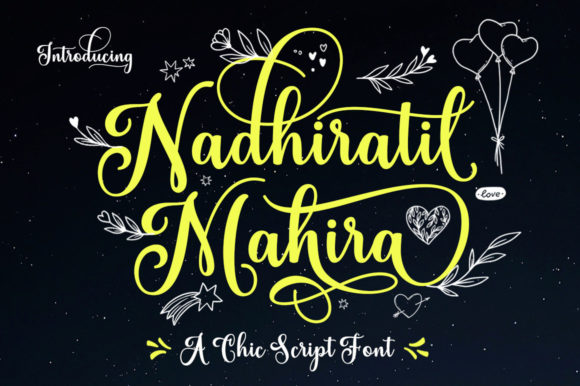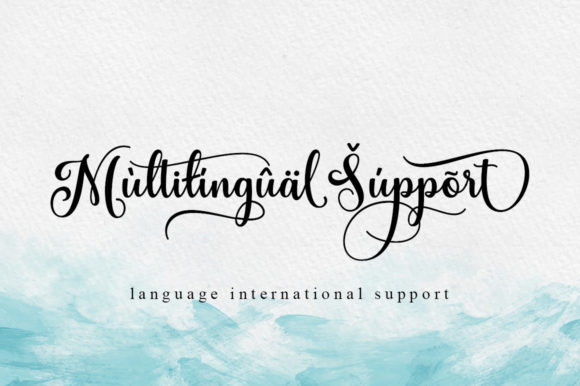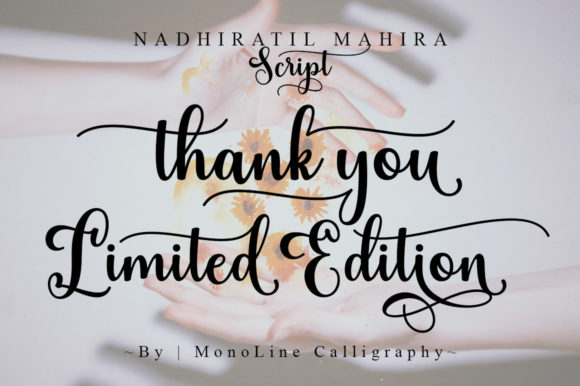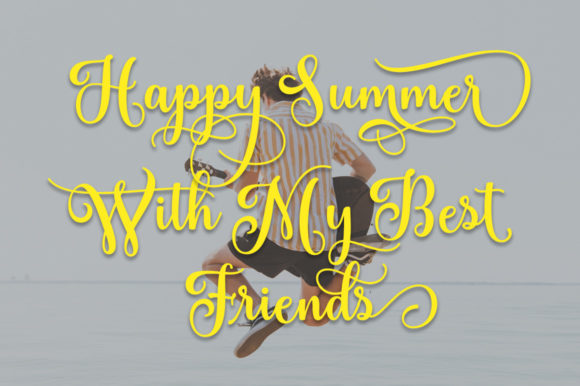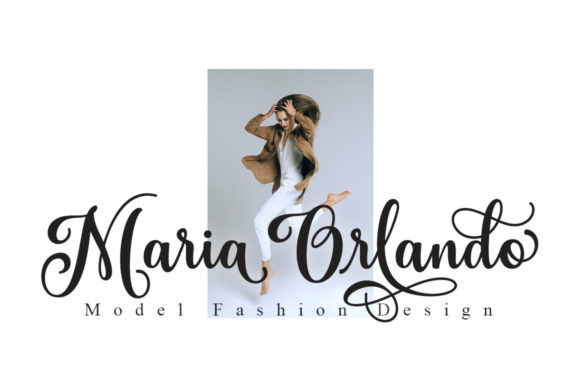
About Nadhiratil Mahira Font
Nadhiratil Mahira is a stylish and incredibly elegant script font. It looks stunning on wedding invitations, thank you cards, quotes, greeting cards, logos, business cards and every other design which needs a handwritten touch. Nadhiratil Mahira is PUA encoded which means you can access all of the glyphs and swashes with ease!Â